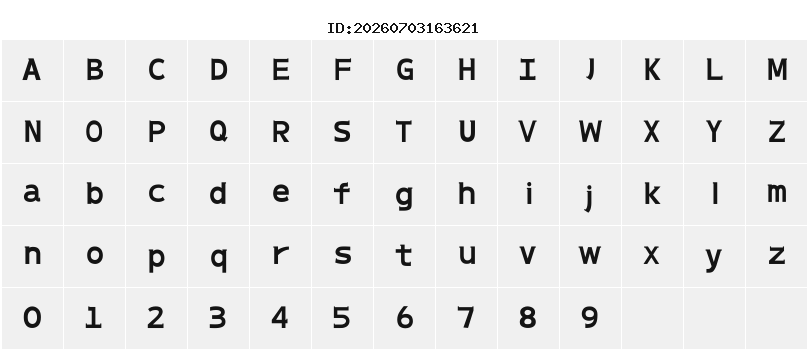
429-上首龙井体 Preview
• Font Name: 429-上首龙井体
• Full Font Name: 429-上首龙井体
About 429-上首龙井体.ttf
429-上首龙井体.ttf is a modern, elegant sans-serif font designed for ultimate readability and visual harmony. Perfect for branding, headlines, web design, and print materials.